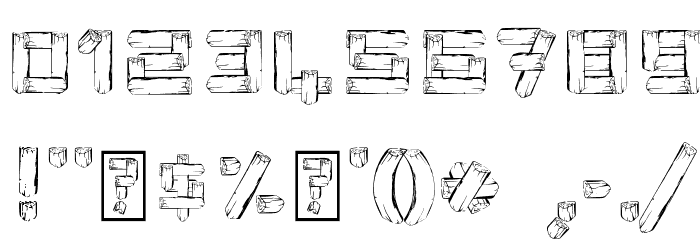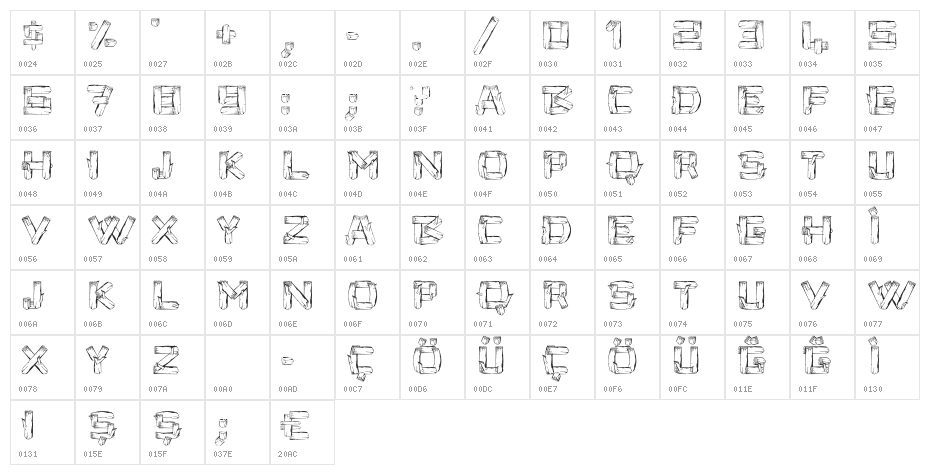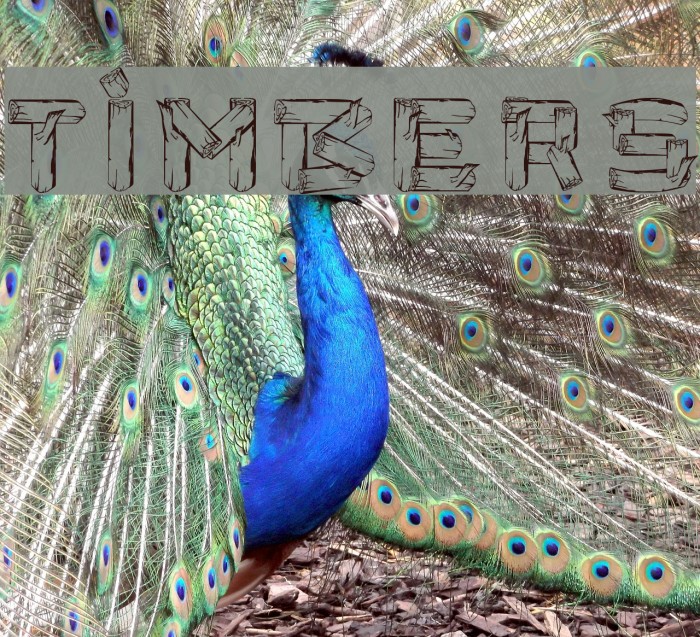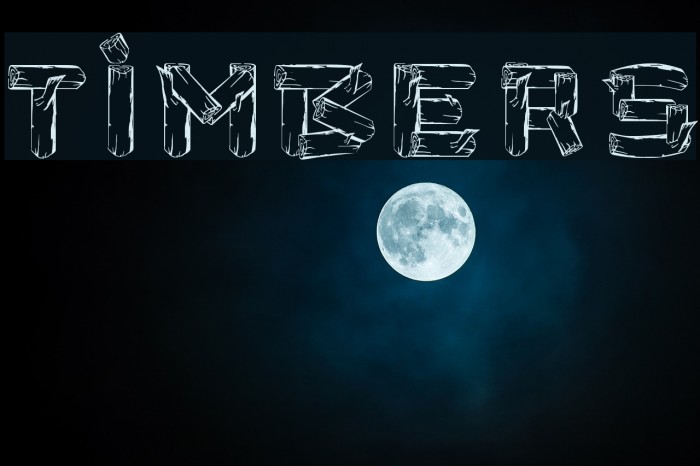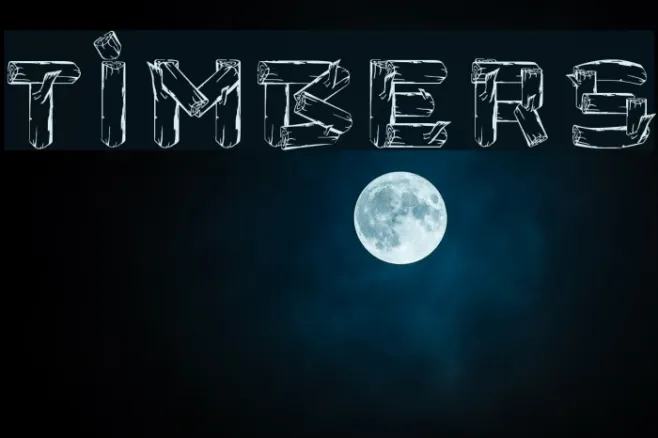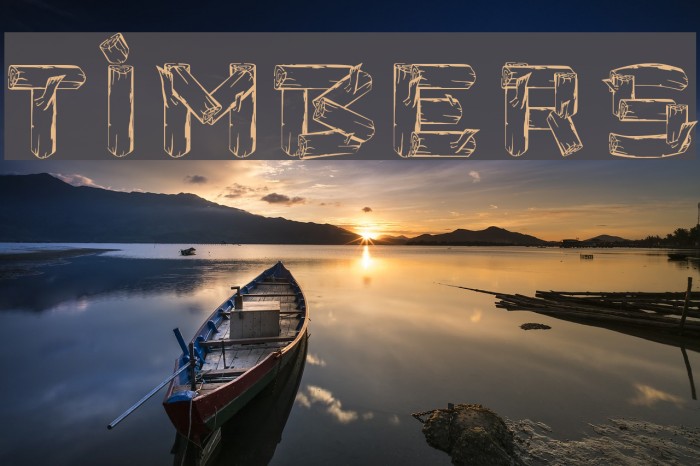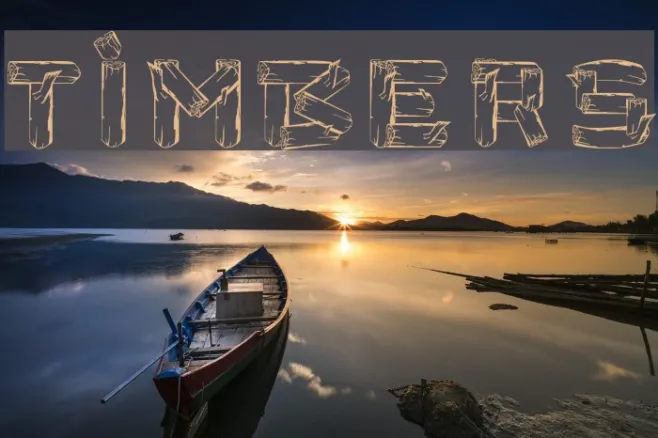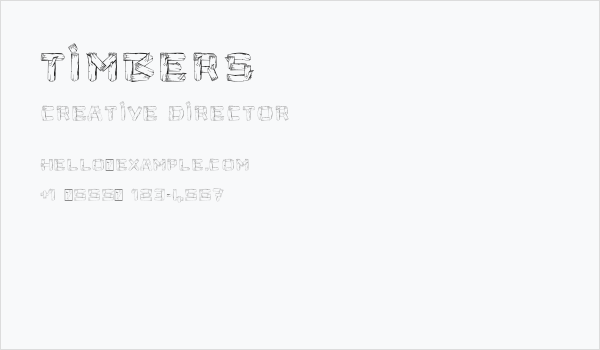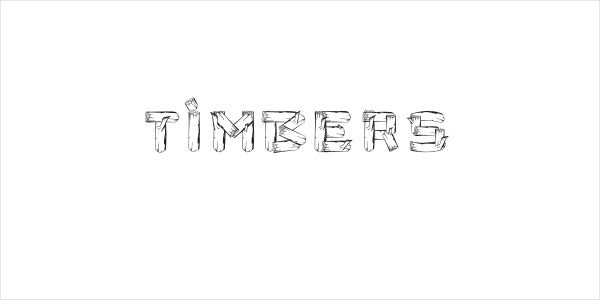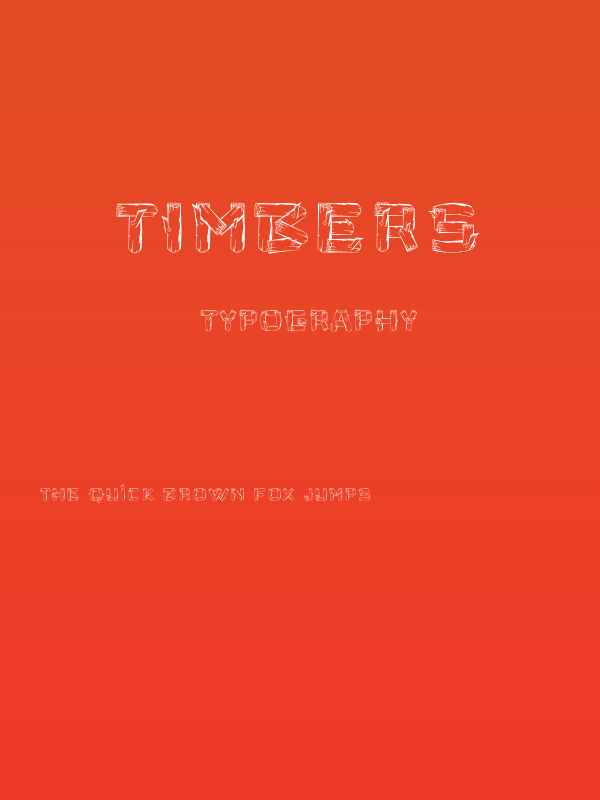
Timbers Font
Timbers Description
This font features a rugged, textured design that mimics the appearance of wooden planks or logs. Each character is crafted with a rough, hand-drawn style, giving it a natural and rustic feel. The letters are bold and blocky, with uneven edges and a slightly distressed look, reminiscent of timber or bark. This unique style adds a sense of depth and dimension, making it stand out in any design. The font maintains a consistent width across all characters, ensuring readability while preserving its distinctive aesthetic.
| Overall Style | Rustic, Natural |
| Proposed Projects | Ideal for projects related to nature, outdoor events, eco-friendly brands, or rustic-themed designs. |